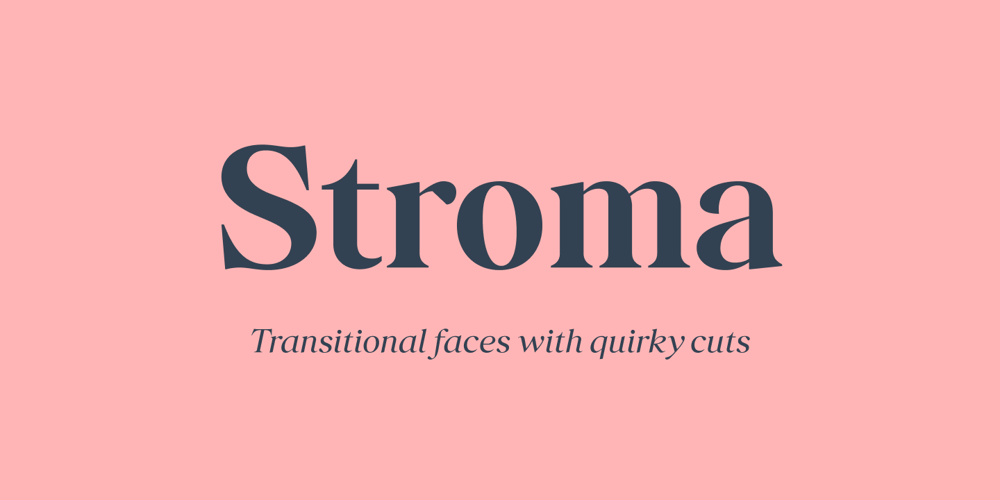
Stroma Font Family was designed by Gumpita Rahayu and published by Tokotype. Stroma contains 8 styles and family package options. Stroma is a serif display faces with moderate contrast and quirky cuts. Intended to use it on headlines in the editorial design environment or big type style graphics, The function of this typeface allows it to use on larger and compact text for any graphical elements that need special treatment. The details interpreted from the straight axis pointed into flourish calligraphic serif, the shape of the letter contains straight details and cuts, this gives them a rich and fine looks. The Stroma family includes four weights, ranging from Light to Bold with italic uprights.